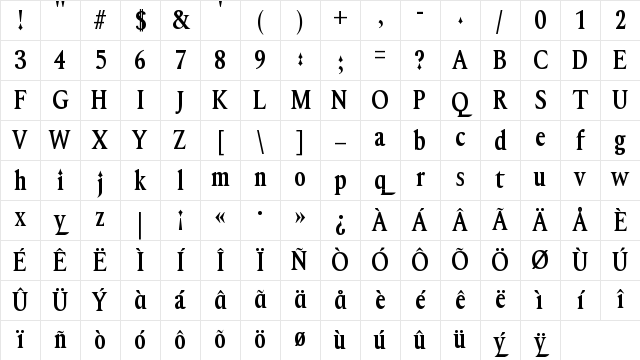
Exquisite Regular
Design Context for Exquisite
Exquisite is a composed and adaptable typeface that performs quietly and consistently across a wide range of design contexts.